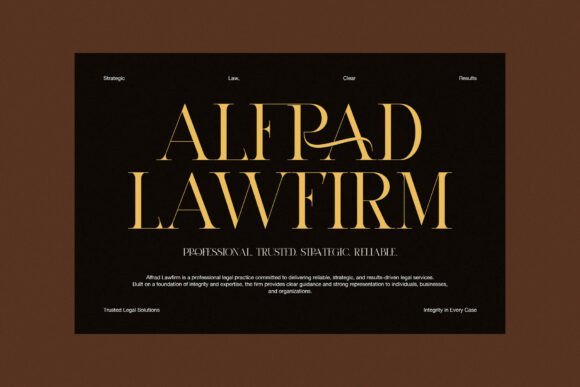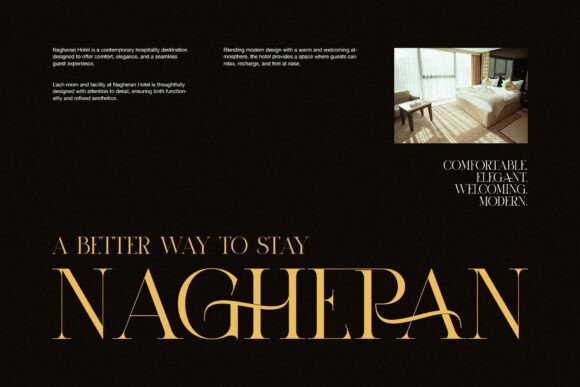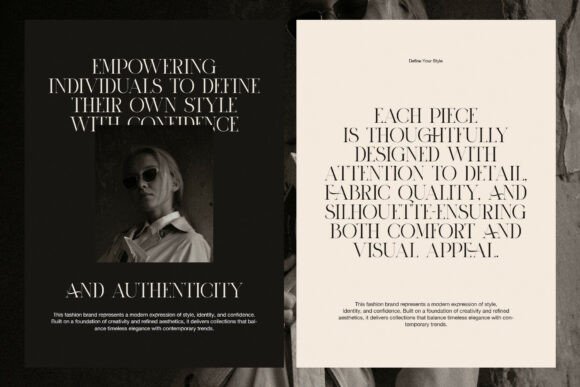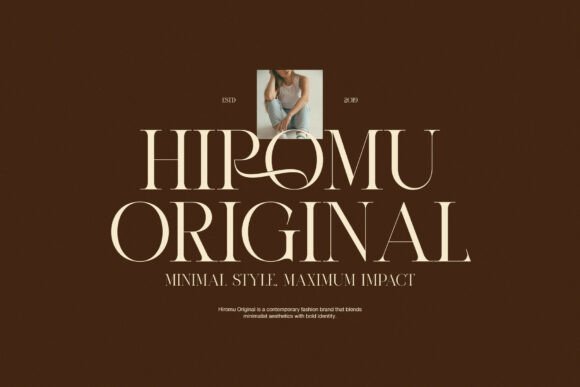
Brand Font
Brand is a refined serif typeface for designers who need a bold, graceful, and high-end look. Because of its strong shape, this font can turn simple words into a premium visual statement. Its letterforms show thin hairlines, wide stems, sharp serifs, and smooth curves. As a result, the font feels elegant, modern, and expressive.